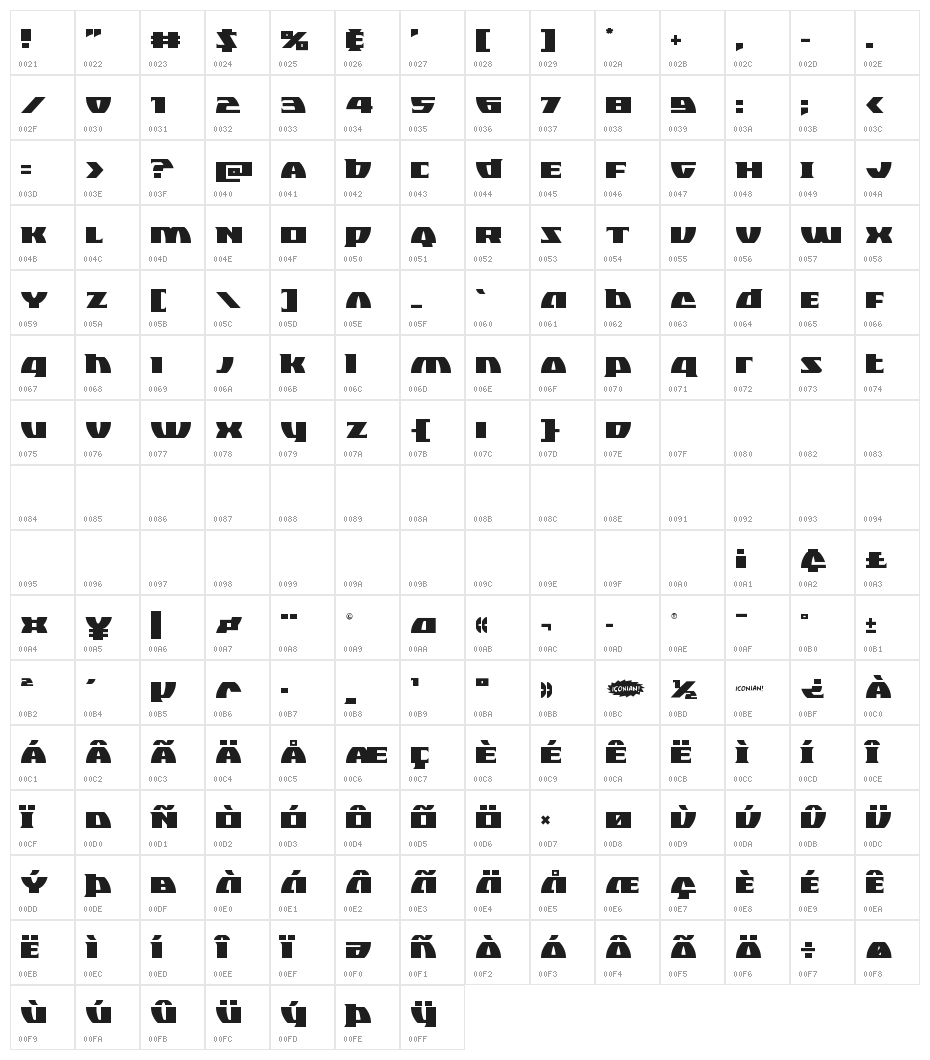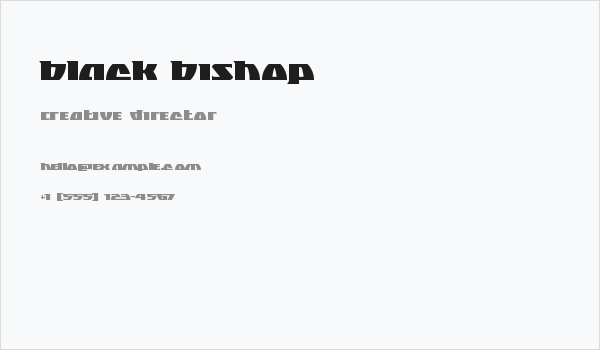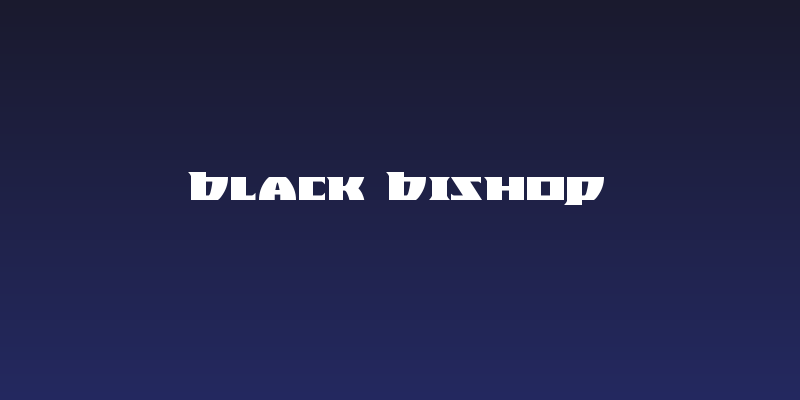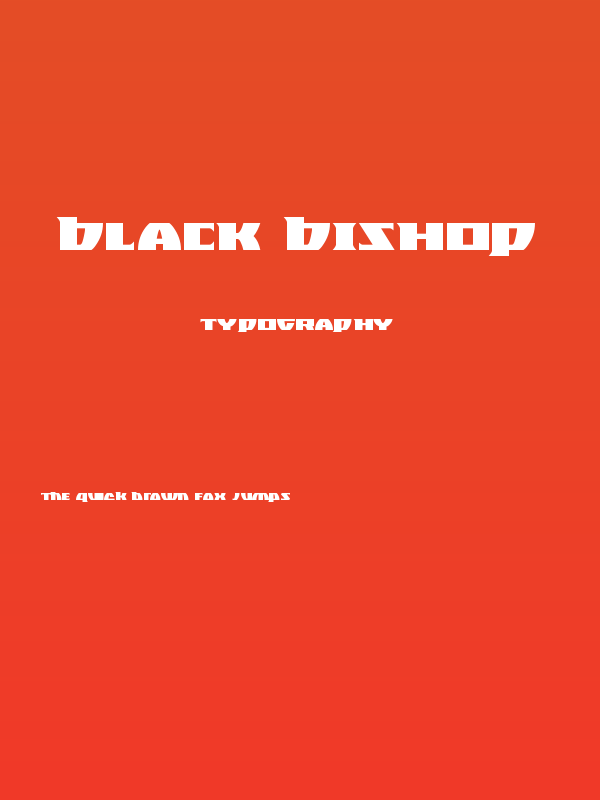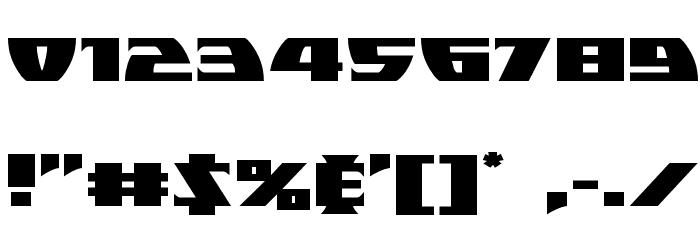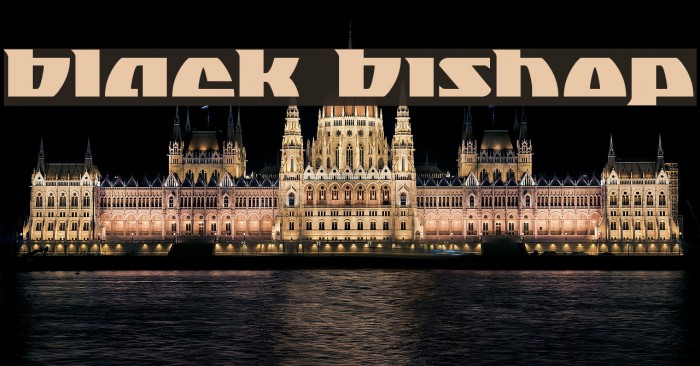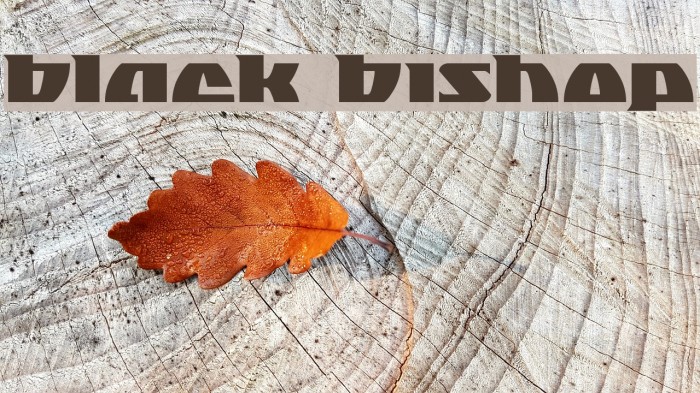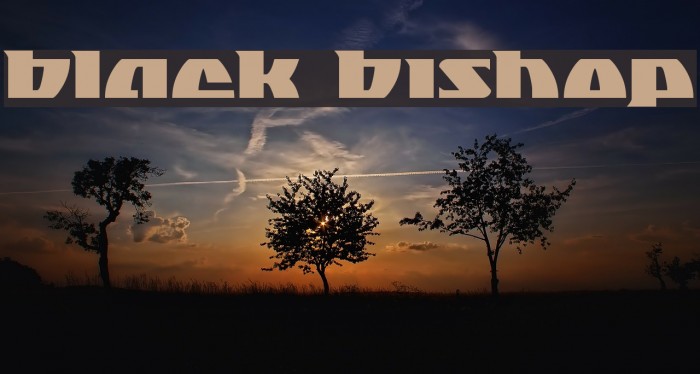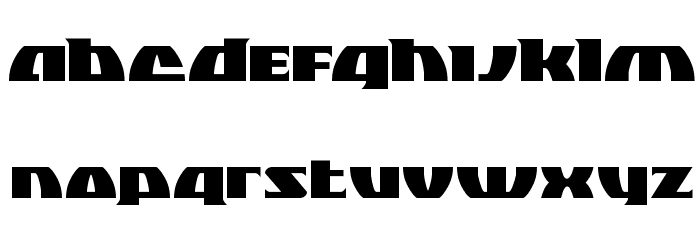
Black Bishop Font
Black Bishop Description
This font features a bold and striking design with a strong geometric influence. The characters are crafted with sharp angles and thick strokes, creating a powerful visual impact. The uppercase and lowercase letters maintain a consistent style, with unique cutouts and angular shapes that add a modern and edgy feel. The numerals and special characters follow the same design principles, ensuring uniformity across the typeface. This font is ideal for projects that require a bold statement and a contemporary aesthetic.
BLACK-BISHOP UPPERCASE
BLACK-BISHOP LOWERCASE
BLACK-BISHOP OTHER CHARS
| Proposed Projects | Ideal for branding, posters, headlines, and any design that requires a strong visual impact. |